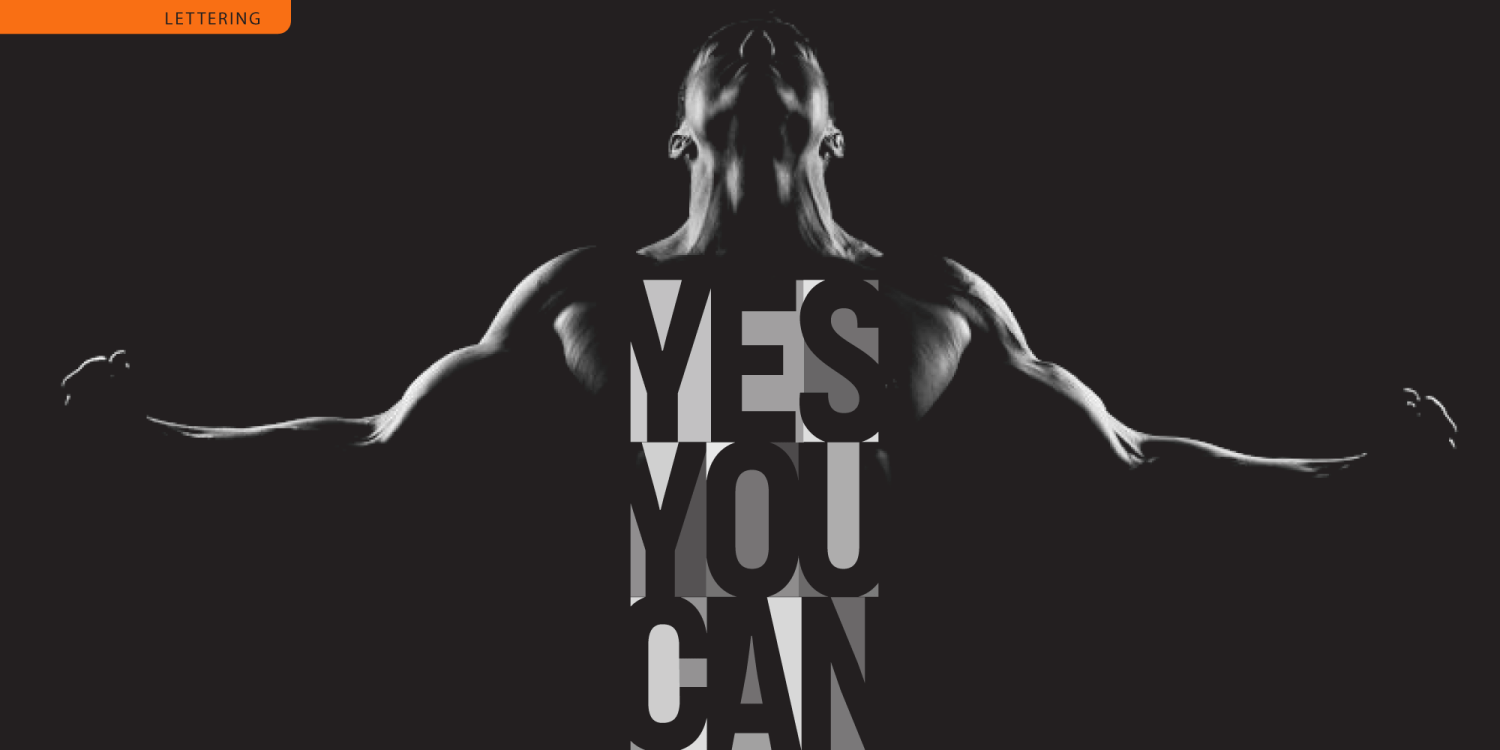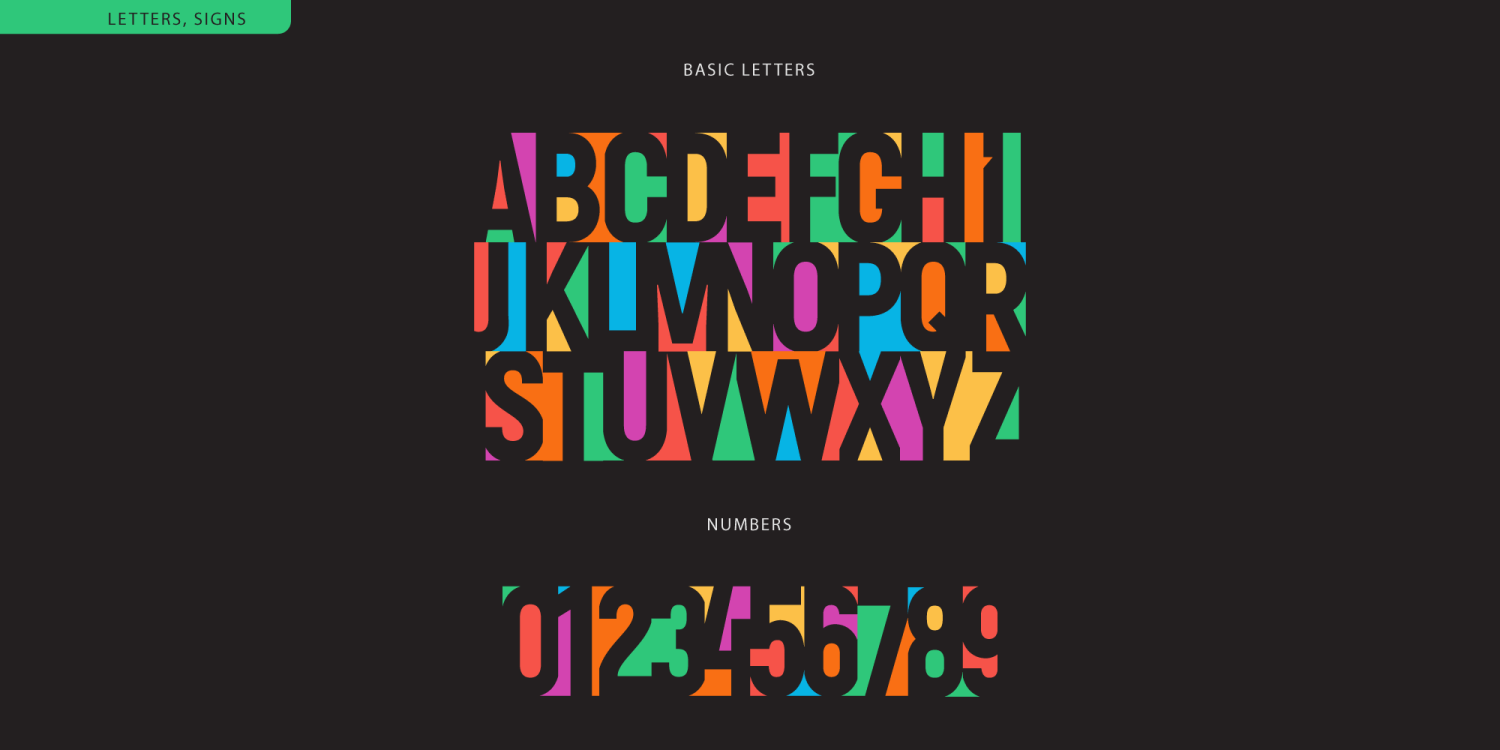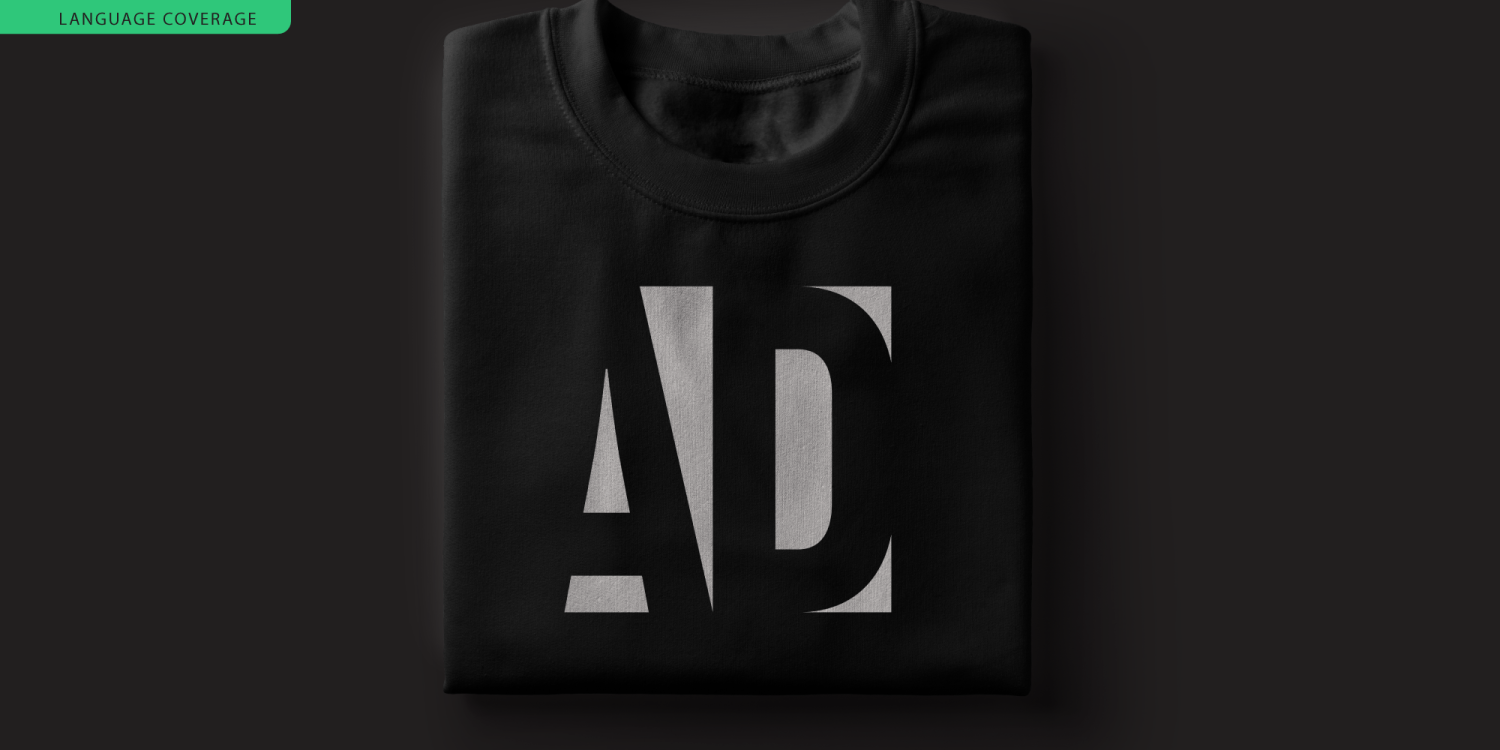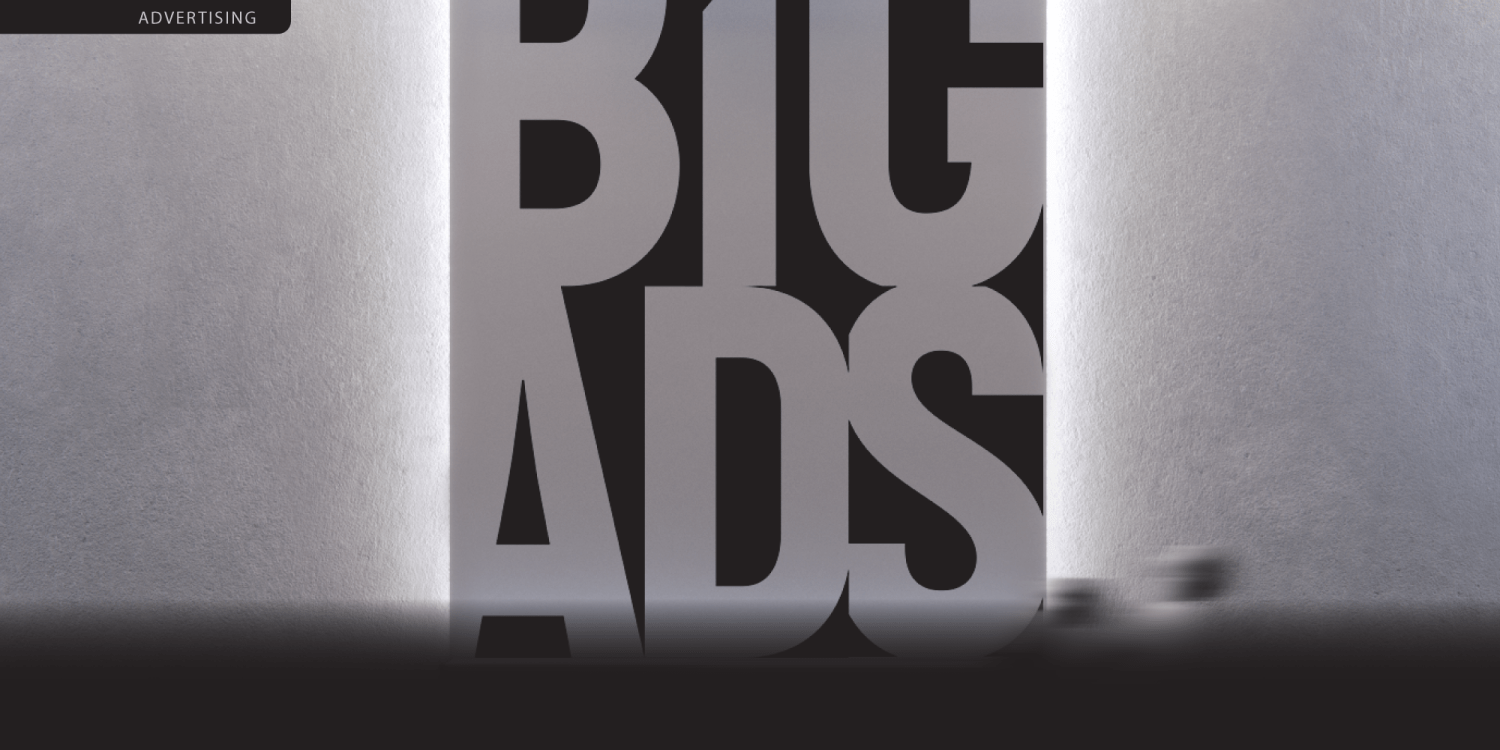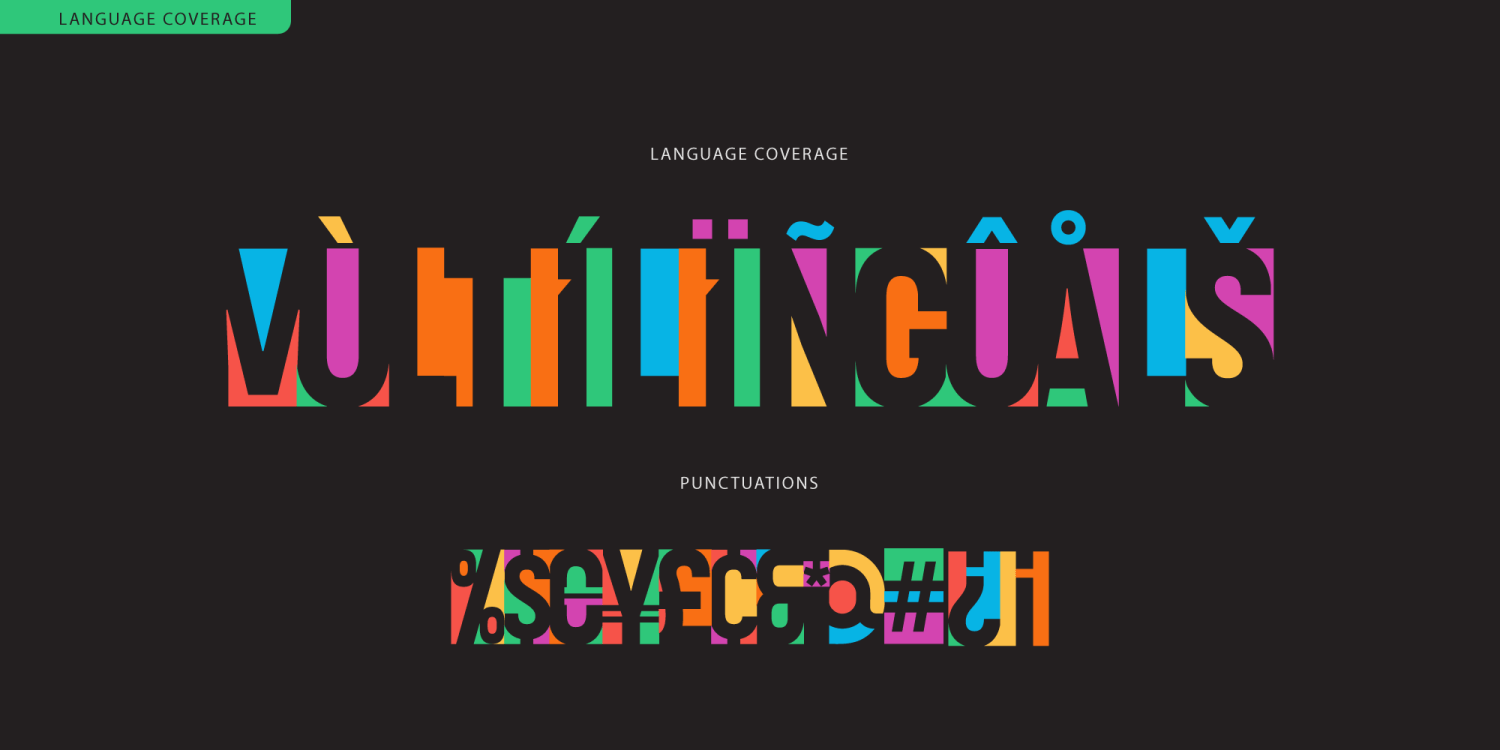
Colorpaper is an experimental uppercase display font built around compressed proportions, bold contrasts and expressive negative space. Its geometric blocks, curved cutouts and fragmented shapes create a dramatic graphic rhythm with a distinctive contemporary character.
Colorpaper is especially effective for posters, editorial layouts, fashion branding, cultural identities, exhibition graphics, album covers, apparel, packaging, advertising and expressive logotypes. It works in restrained monochrome compositions as well as bold multicolor designs.
The font includes uppercase letters, numerals, punctuation and multilingual Latin support. It is designed primarily for short headlines, titles and wordmarks where its unconventional construction can become the main visual element.